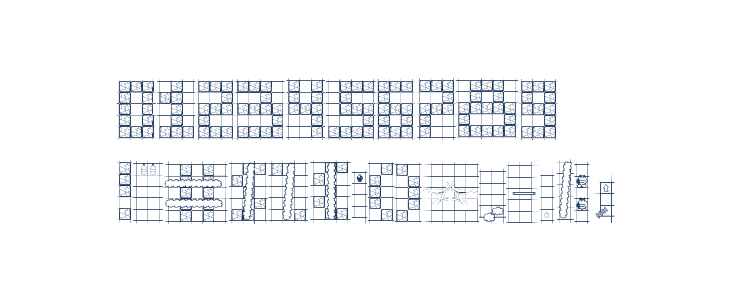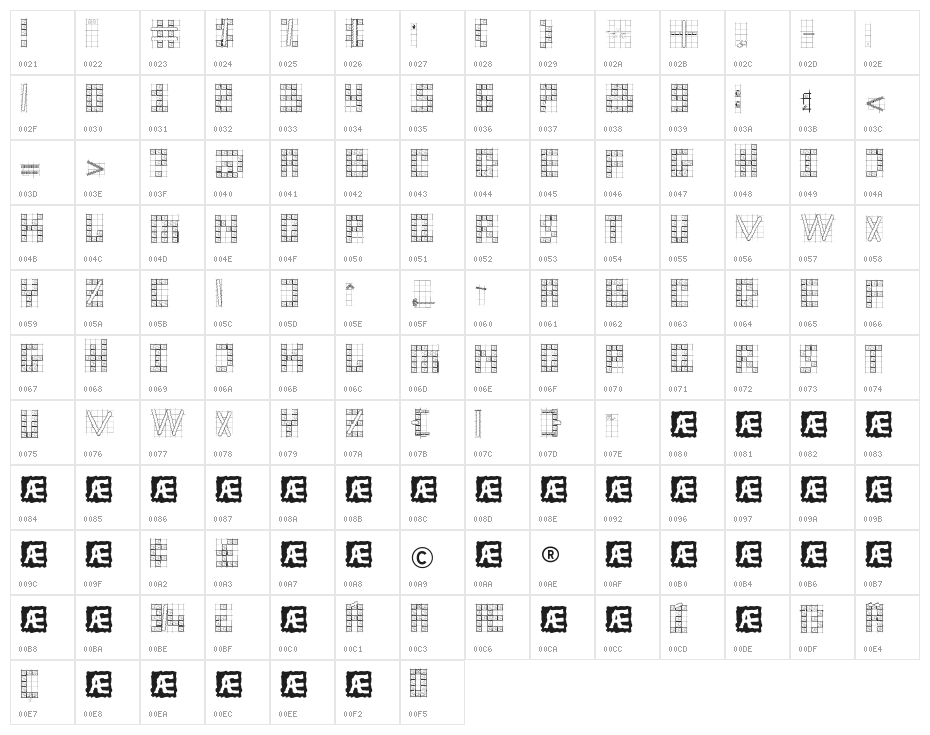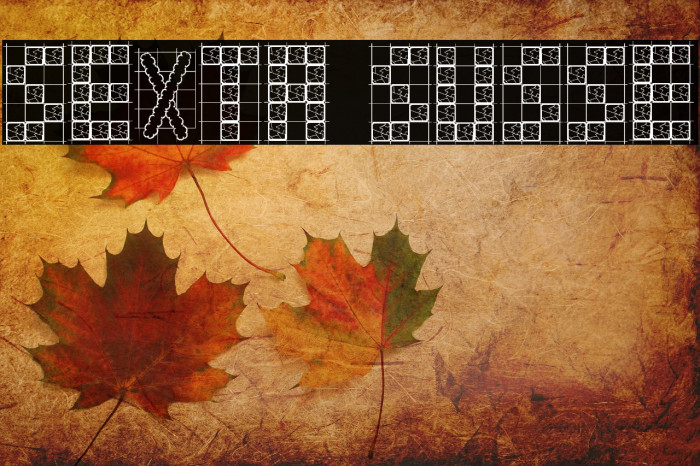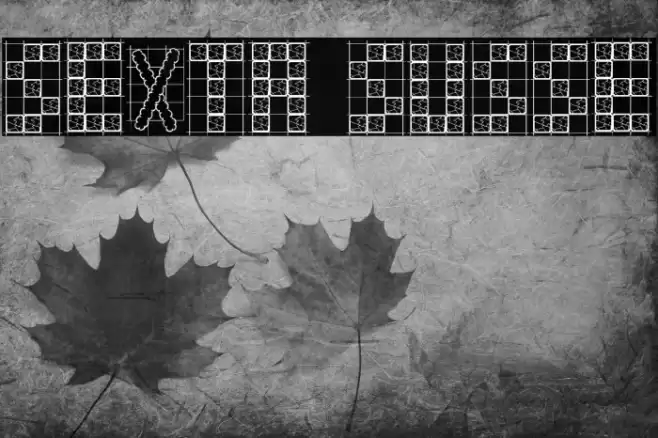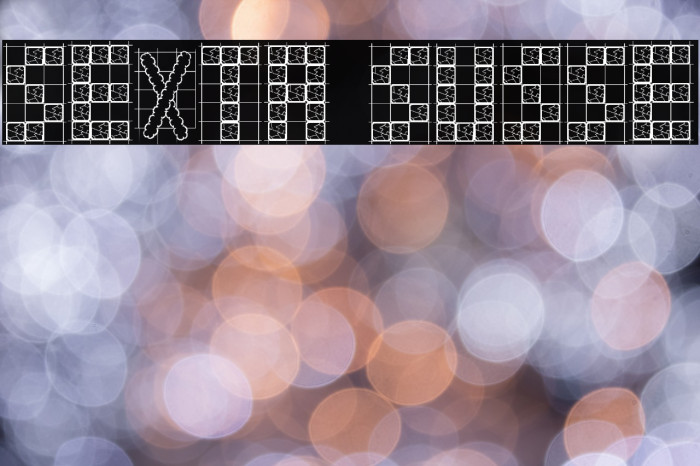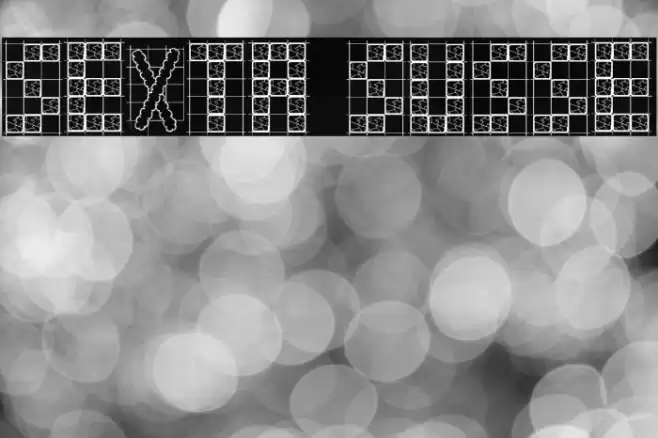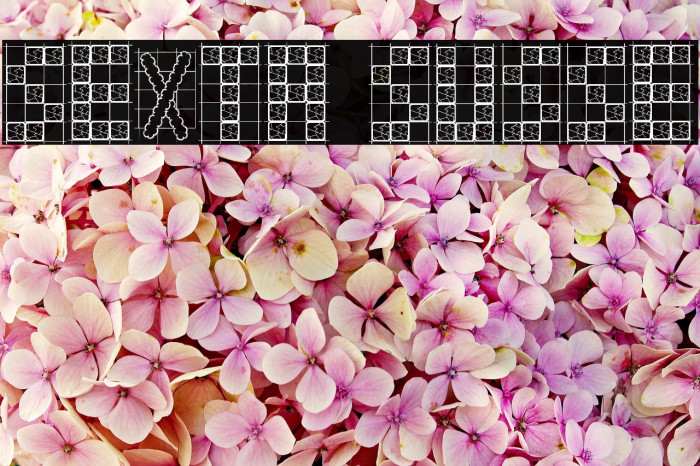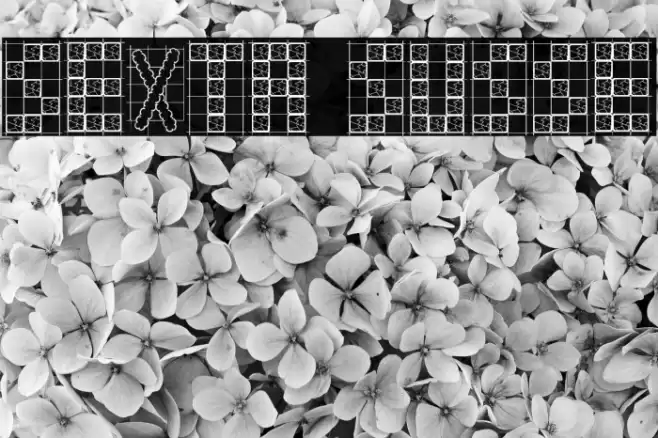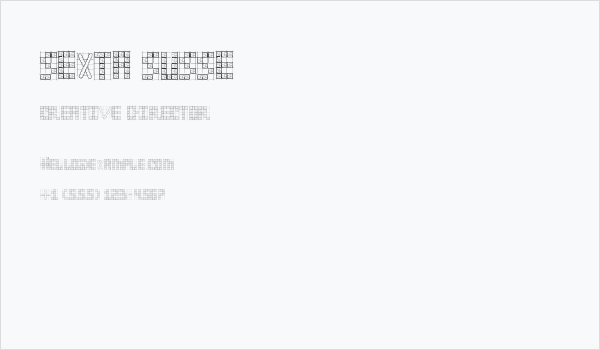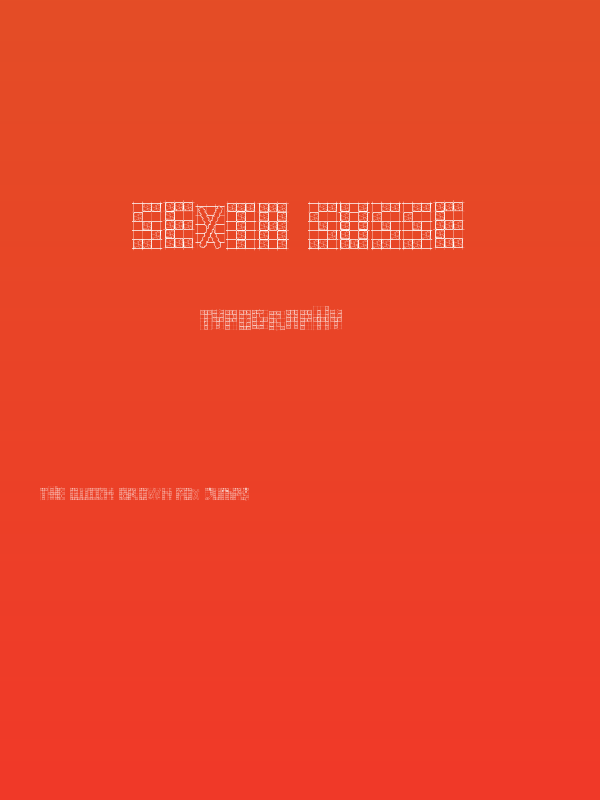
Sexta Susse Font
Sexta Susse Description
This font features a unique, decorative style with each character composed of intricate patterns and textures. The letters are enclosed within a grid-like structure, giving them a pixelated appearance. The design is highly detailed, with each character containing a series of small, repeating motifs that create a visually complex and engaging look. The uppercase and lowercase letters maintain a consistent style, with the same level of detail and pattern work. Numbers and special characters are also included, following the same decorative theme. This font is ideal for projects that require a distinctive and artistic touch, where the text itself becomes a focal point of the design.
| Use Case | Logos, Posters, Artistic Designs |
| Proposed Projects | Ideal for artistic projects, posters, and creative digital designs where a unique and decorative font is desired. |